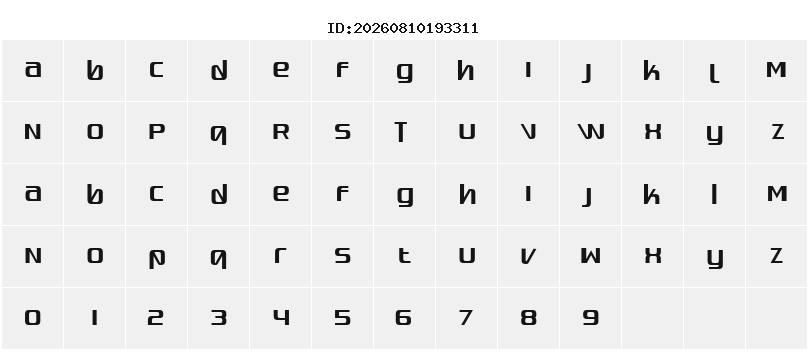
• Font Name: Quadaptor
• Designer: Ray Larabie
• Manufacturer: Larabie Fonts
Quadaptor.ttf is a modern, elegant sans-serif font designed for ultimate readability and visual harmony. Perfect for branding, headlines, web design, and print materials.